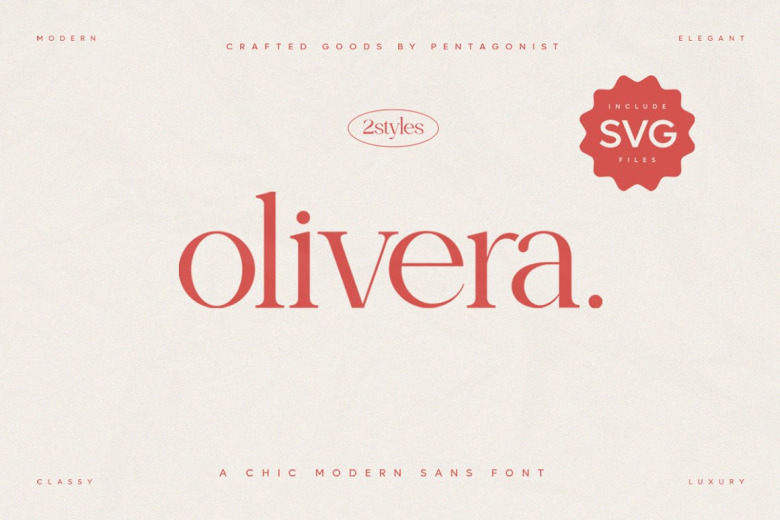
Olivera Font
The second font that I preferred was Olivera. Olivera is a modern, elegant serif font that adds delicate design elements to projects. It is ideal for luxury, graceful, female programs that serve as a basis for developing contemporary, incarnate design.
Olivera Serif Font